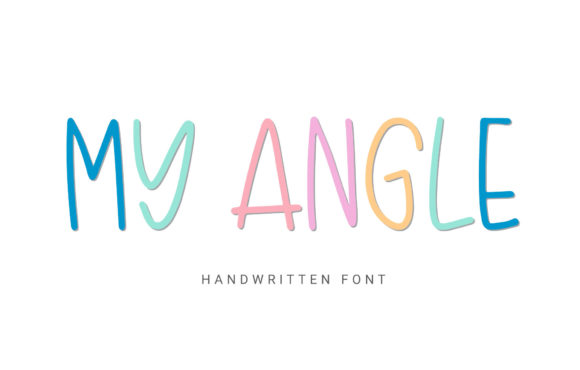
Immerse yourself in the enchanting world of My Angle, a captivating script font family that exudes warmth, playfulness, and an irresistible charm. Crafted by the talented artdee2554, this masterpiece is an ode to creativity and imagination, inviting you to explore a universe of boundless design possibilities.
With its alluring curves and lively strokes, My Angle dances across your screen like a melody in motion. Its fluid and graceful lines capture the essence of carefree spirit, making it an ideal choice for projects that seek to evoke a sense of joy and whimsy. Whether you're creating eye-catching logos, playful invitations, or heartfelt greetings, My Angle is your trusty companion, ready to add a dash of delight to any project.
Step into the spotlight with My Angle, a font family that commands attention and captivates hearts. Its refined style is a perfect match for banner designs, where every letter becomes a work of art. Let your words shine with elegance and sophistication, as My Angle transforms your banners into visual symphonies that leave a lasting impression.
But My Angle's allure extends far beyond banner designs. Its versatility is a symphony of possibilities, beckoning you to explore a kaleidoscope of creative expressions. Embrace the magic of My Angle in your social media posts, and watch as your words ignite curiosity and engagement. Adorn your website with its charming touch, and let your online presence exude warmth and personality. Unleash your imagination and let My Angle guide you into a world where every design tells a captivating story.
With My Angle by your side, you become a storyteller extraordinaire. Its delightfully expressive characters bring life to your words, weaving tales that resonate with readers and leave them spellbound. Craft enchanting invitations that set the tone for unforgettable celebrations. Design posters that burst with vibrance, drawing eyes and hearts alike. Transform your presentations into visual masterpieces, where information dances with elegance.
My Angle is more than just a font; it's an invitation to embark on an artistic adventure. A world of design awaits, where creativity knows no bounds. Let My Angle be your muse, your faithful companion as you redefine the boundaries of beauty and grace.